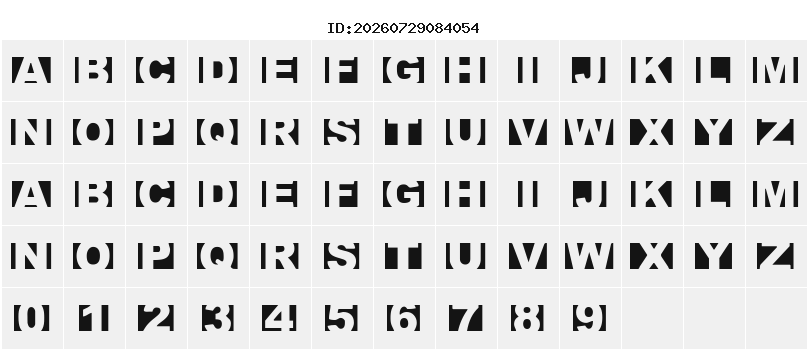
JI-Pinkey Preview
• Font Name: JI-Pinkey
• Full Font Name: JI-Pinkey
• Designer: JupiterImages
About JI-Pinkey.ttf
JI-Pinkey.ttf is a modern, elegant sans-serif font designed for ultimate readability and visual harmony. Perfect for branding, headlines, web design, and print materials.